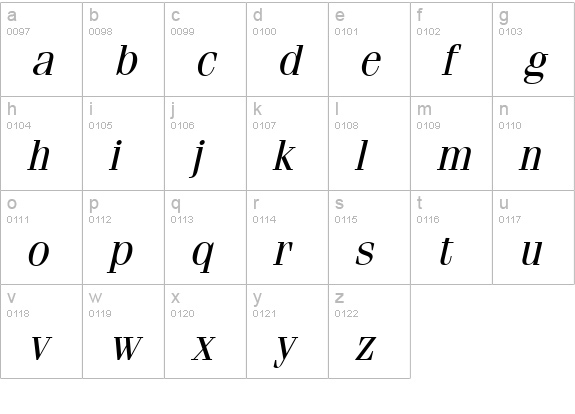
Fenice Italic is a distinctive, italic variant in the Fenice typeface family \xE2\x80\x94 well suited to design and typography projects.
Fenice Italic font is a graceful and elegant typeface that exudes sophistication and style. Its delicate curves and flowing lines make it perfect for adding a touch of class to any design project. The italicized style adds a sense of movement and fluidity, making it ideal for conveying a sense of elegance and refinement. What's even better is that Fenice Italic font is available for free download at FontsMarket.com. This means you can easily access this beautiful font and use it in your projects without any cost. Whether you're working on a branding project, invitations, or any other design work, Fenice Italic font is sure to elevate your work to the next level. Download it today and add a touch of sophistication to your designs!